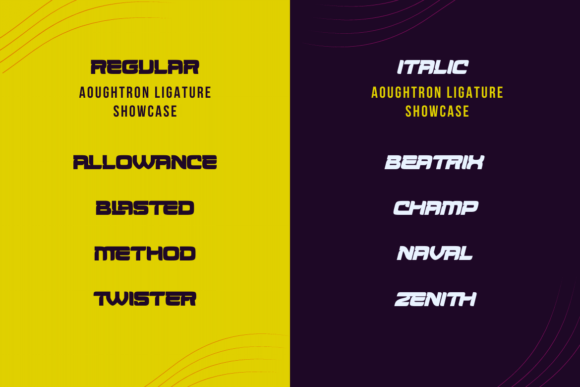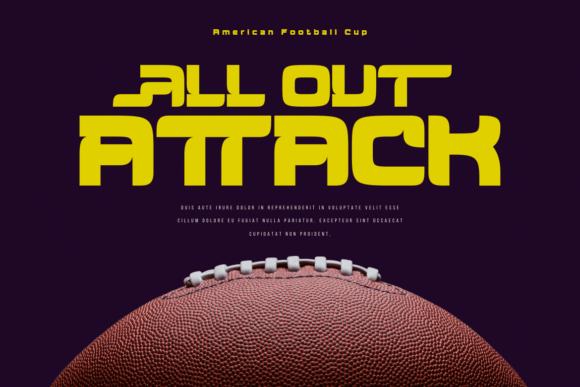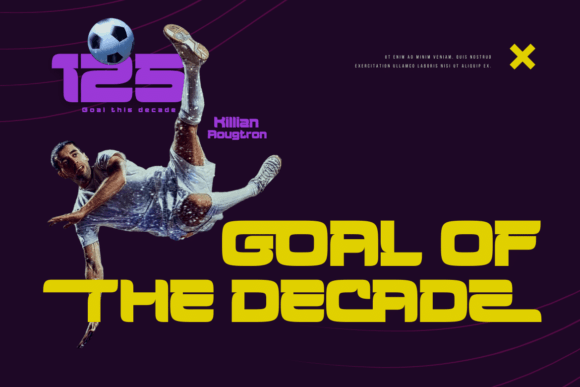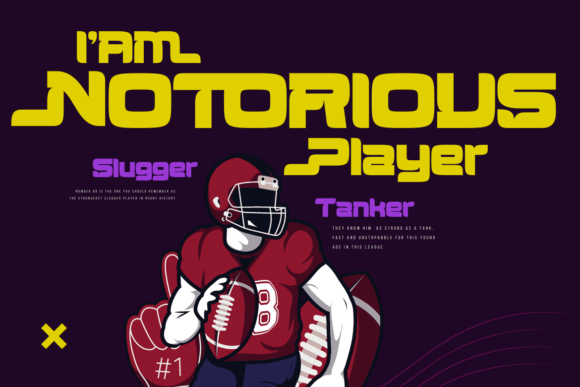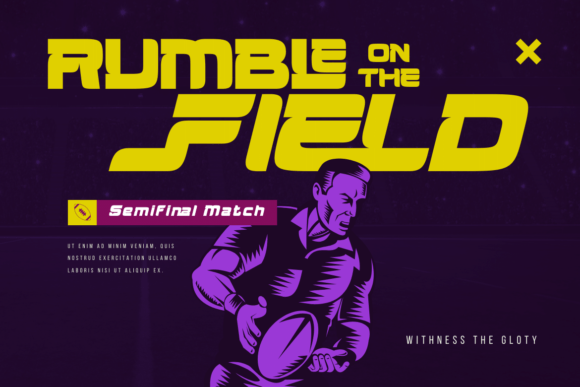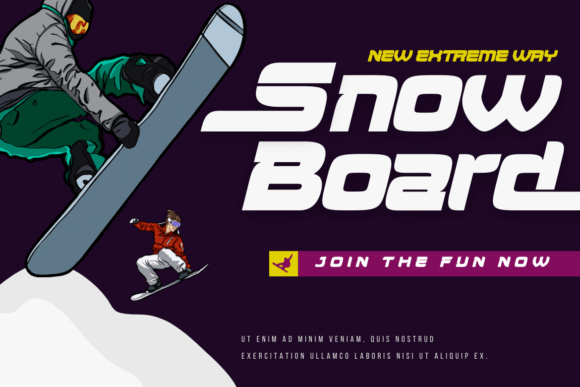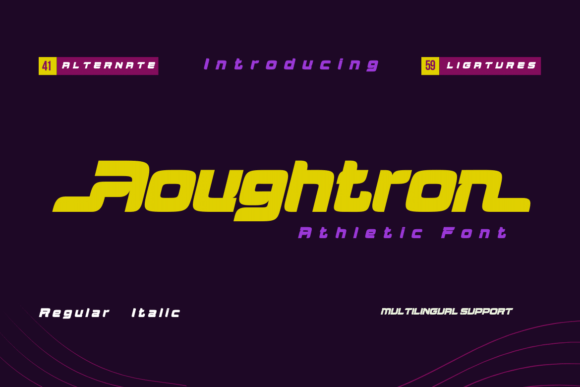
Aougtron Font: Elevate Your Designs with a Modern Sporting Twist
In the world of typography, fonts play a crucial role in conveying the tone and personality of a brand or design. For designers and crafters looking to add a touch of modernity and dynamism to their work, the Aougtron font is an excellent choice. This cutting-edge font combines a dynamic slope with sporting event-inspired lettering and cutouts, making it perfect for professional sporting events, modern logos, and screen prints.
The Unique Features of Aougtron Font
Aougtron’s bold and powerful appearance is created by the strong horizontal strokes on each letter, which contrasts sharply with the elegant strokes on the corners of each letter. This distinctive combination gives the font a unique and captivating look that is sure to grab attention. The font’s design is inspired by the excitement and energy of sporting events, making it an ideal choice for teams, leagues, and sports-related brands.
Versatility and Creative Freedom
One of the standout features of Aougtron is its versatility. The font can be used in a variety of contexts, from professional sporting events to modern logos and screen prints. Designers can use Aougtron to create stunning text fields, eye-catching headlines, and even intricate designs. The font’s PUA encoding also makes it easy to access all the glyphs and swashes, allowing for maximum creative freedom.
PUA Encoding: What It Means for Designers
PUA (Private Use Area) encoding is a feature that allows designers to access a wide range of glyphs and swashes within the font. This means that users can easily navigate and select the desired characters, making the design process more efficient and streamlined. With Aougtron’s PUA encoding, designers can focus on creating stunning designs without the hassle of complicated font management.
Aougtron is an excellent choice for designers and crafters looking to elevate their work with a modern and dynamic font. Whether you’re creating logos, screen prints, or text fields, Aougtron’s bold and elegant design is sure to impress. The font’s versatility and creative freedom make it an excellent addition to any design toolkit.
Tips for Using Aougtron Font
To get the most out of Aougtron, here are some tips for using the font:
- Experiment with different font sizes and colors to create a unique look.
- Combine Aougtron with other fonts to create a striking contrast.
- Use the font’s glyphs and swashes to add intricate details to your designs.
- Take advantage of Aougtron’s PUA encoding to streamline your design process.
In conclusion, Aougtron is a modern font that is sure to elevate your designs with its dynamic slope, sporting event-inspired lettering, and cutouts. With its bold and powerful appearance, versatility, and creative freedom, Aougtron is an excellent choice for designers and crafters looking to add a touch of modernity to their work. Whether you’re creating logos, screen prints, or text fields, Aougtron is the perfect font to help you achieve your design goals.